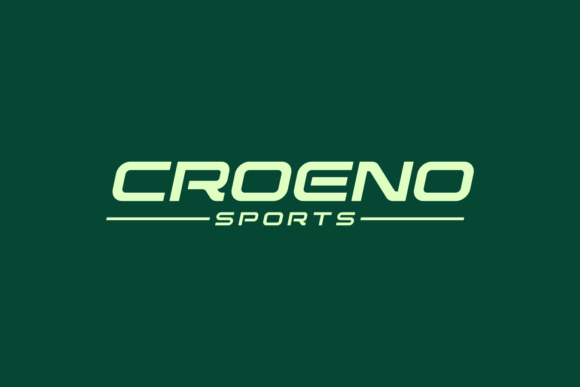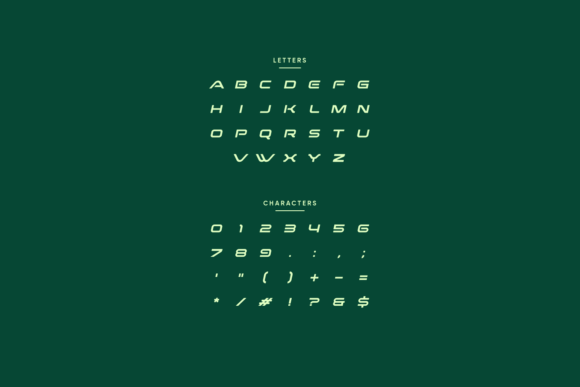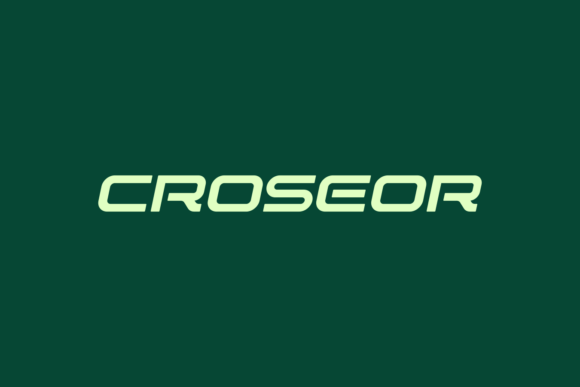
Introducing Cronor Font: The Ultimate Modern Display Font for Sports Branding and Bold Typography
In the world of design, typography plays a crucial role in conveying the message and tone of a brand. For designers and crafters looking for a font that can add a touch of modernity and boldness to their projects, Cronor Font is an excellent choice. Specifically designed for sports branding, headlines, and prominent typography needs, Cronor is a modern display font that is sure to make your design more memorable.
What is Cronor Font?
Cronor is a modern display font built specifically for sports branding, headlines, and more prominent typography needs. This font comes with a new and fresh all-caps style, making it perfect for adding a bold and modern touch to your designs. Whether you’re working on a sports, tech, action, or future-themed project, Cronor is the ideal font to help you showcase your main ideas.
Key Features of Cronor Font
- Modern and Fresh Design: Cronor boasts a modern and fresh all-caps style that is sure to make your design stand out.
- Sports Branding: Specifically designed for sports branding, Cronor is perfect for creating bold and eye-catching logos, jerseys, and other sports-related designs.
- Bold and Memorable: With its bold and modern design, Cronor is sure to make your design more memorable and engaging.
- Multi-Theme Compatible: Cronor is not just limited to sports branding; it’s also perfect for tech, action, and future-themed projects.
Why Choose Cronor Font?
There are several reasons why designers and crafters should consider choosing Cronor Font for their projects:
- Unique and Distinctive: Cronor’s modern and fresh design sets it apart from other fonts, making it a unique and distinctive choice for your projects.
- Easily Readable: Despite its bold design, Cronor is easily readable, even at smaller font sizes.
- Highly Versatile: Cronor can be used for a wide range of projects, from sports branding to tech and action themes.
- Time-Saving: With Cronor, you can save time and effort in creating custom typography for your projects.
How to Use Cronor Font?
- Use for Headlines and Titles: Cronor is perfect for headlines and titles, making it ideal for posters, flyers, and other marketing materials.
In conclusion, Cronor Font is an excellent choice for designers and crafters looking for a modern display font that can add a touch of boldness and modernity to their projects. With its fresh and unique design, Cronor is perfect for sports branding, headlines, and prominent typography needs. Whether you’re working on a sports, tech, action, or future-themed project, Cronor is sure to make your design more memorable and engaging.